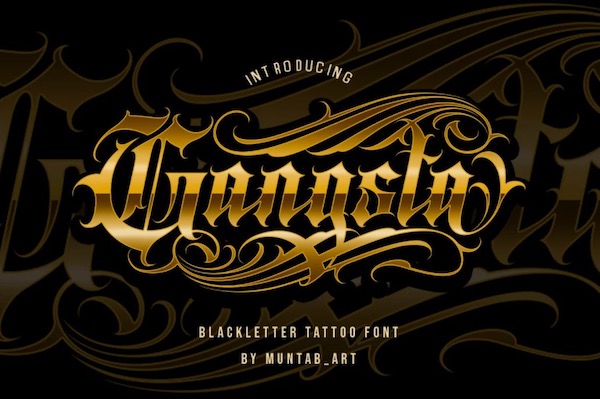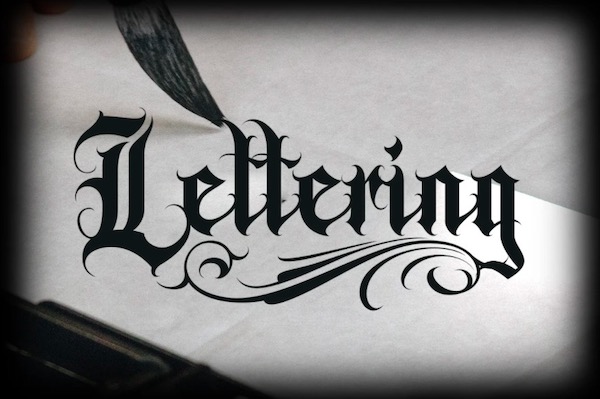
Introducing Gangsta font, it’s a unique fancy Blackletter Font with a featured Tattoo style. It was created carefully and shared by Muntab_Art, this modern font is stunning for branding, shirt design, tattoo design, logo studio tattoo, poster, and more.
Gangsta Blackletter Font
Font family: Gangsta Font
Full font name: Gangsta Font
Font subfamily identification: Regular & Italic
Designer Name: Muntab_Art